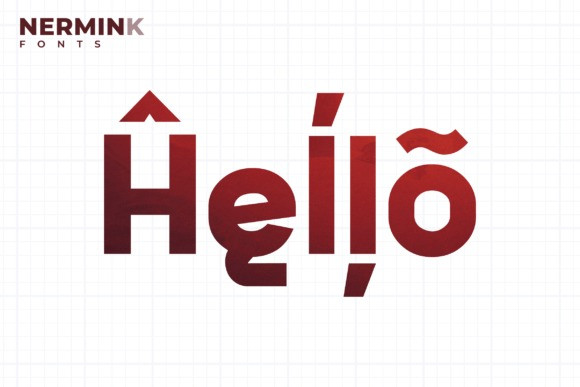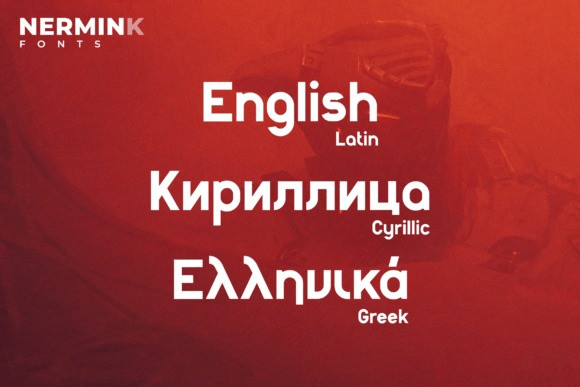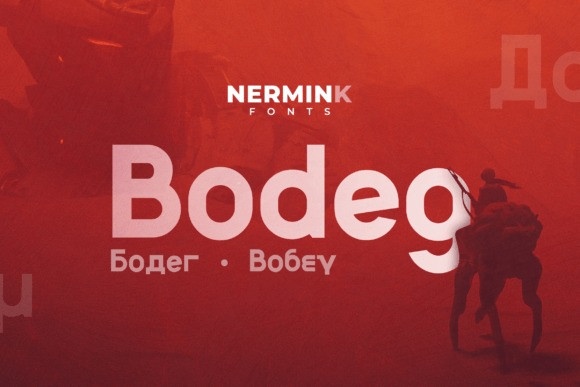
Bodeg Font
Bodeg Font is a modern and cool-looking sans serif font, using both sharp and curved edges to stand out from the crowd while maintaining a clean design that makes it adaptable to many situations. Add it confidently to your projects, and you will love the results.